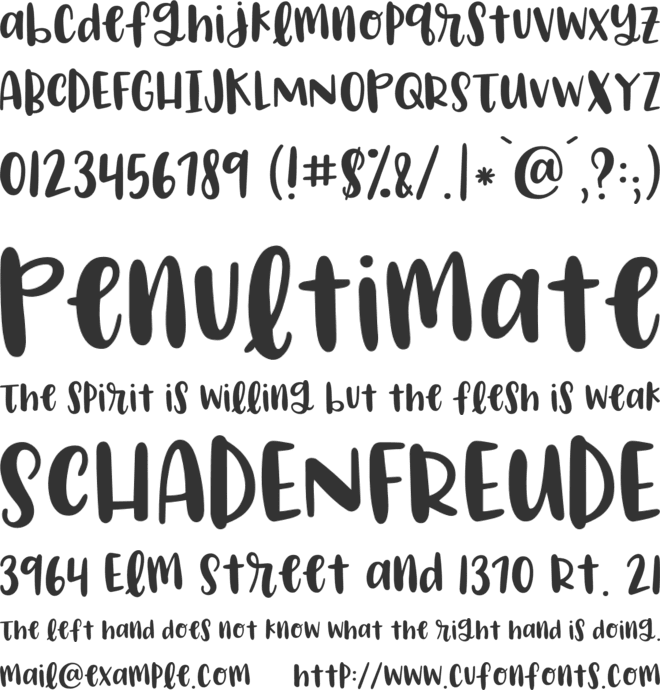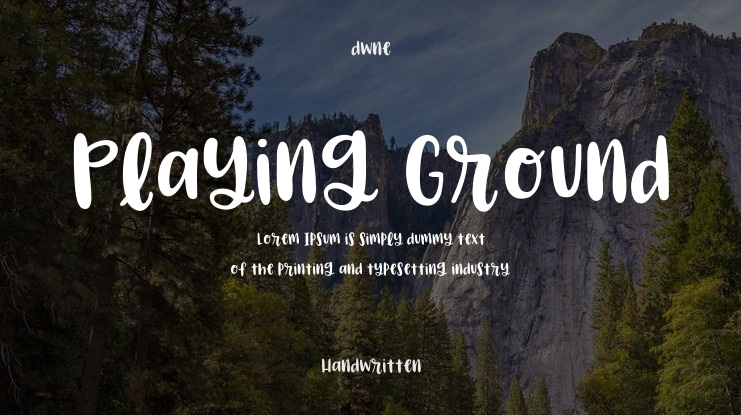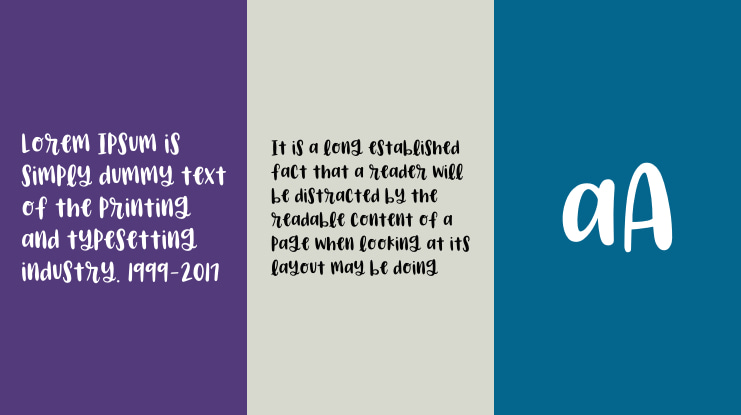
Playing Ground Font
Playing Ground the playful font designed to bring a touch of cuteness to any project. With its small and charming characters, Playing Ground captures the essence of whimsical cartoon style, making it perfect for children’s books, playful branding, and any design that needs a fun and friendly vibe. Each letter is crafted with a focus on simplicity and sweetness, ensuring readability while maintaining its delightful appearance. The compact size and endearing design of Playing Ground make it an excellent choice for adding a touch of joy and charm to your text, whether it’s for a lighthearted logo, a fun poster, or any creative endeavor that seeks to bring smiles.